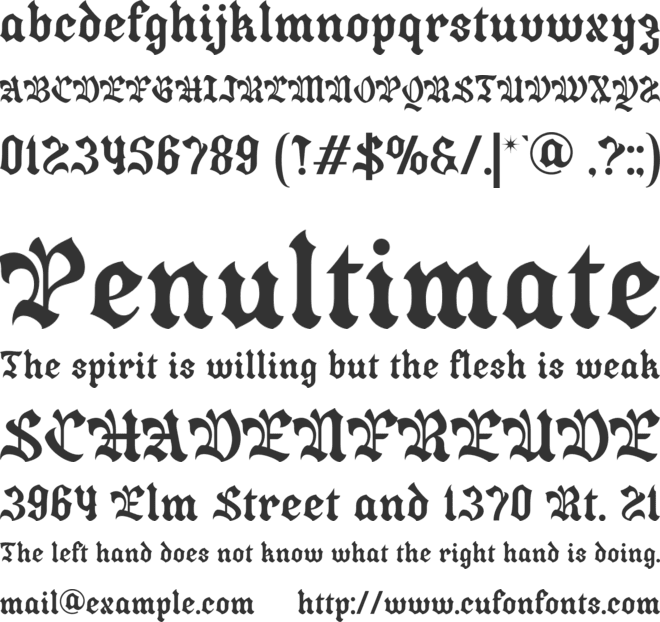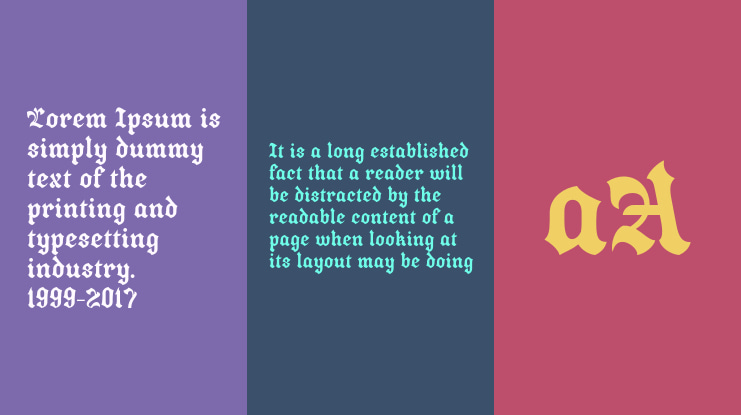
Bladfour Font
Bladfour is a powerful blackletter typeface forged for epic stories, dark fantasy worlds, and legendary visuals. Inspired by medieval manuscripts, ancient warriors, and heroic tales, Bladfour brings a bold, commanding presence to every design it touches.
Burntilldead - Illustrator and Typefoundry